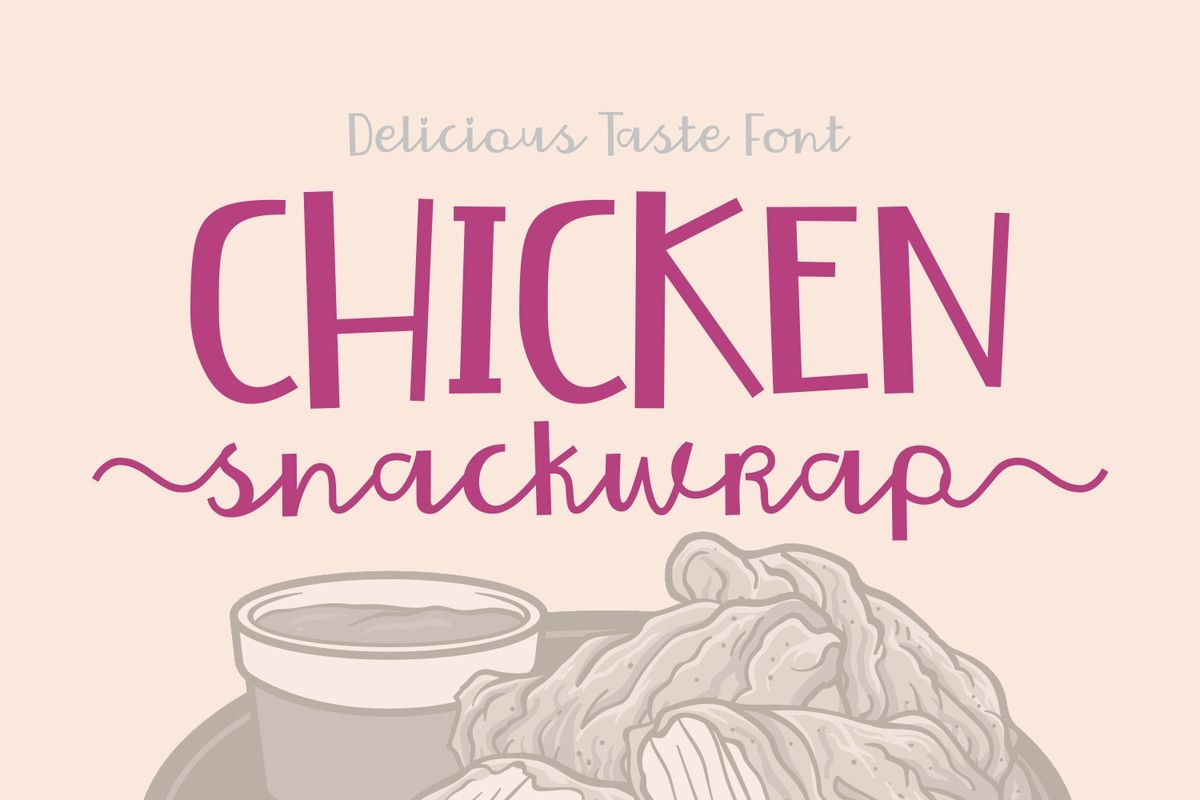
Chicken Snackwrap Font
Chicken Snackwrap Font is perfect for fast-casual restaurant branding, food truck identity, quick-service menu design, snack food packaging, casual dining promotions, and fun food delivery campaigns. Its playful character makes it ideal for chicken restaurants, wrap and sandwich shops, casual food courts, food festival vendors, student-focused eateries, and any project requiring appetite appeal with casual dining charm and comfort food authenticity.
This font is exciting because it captures the satisfying comfort and casual enjoyment of quick, delicious meals while delivering exceptional functionality for food brands seeking to communicate convenience, taste, and the kind of approachable quality that makes customers crave more. The appetizingly crafted letterforms evoke the warmth of fresh-cooked comfort food and the casual satisfaction of a perfectly wrapped meal, creating instant hunger appeal.
The Chicken Snackwrap Font family typically includes Light, Regular, Medium, and Bold weights with food-friendly alternates, casual dining ligatures, and appetizing elements that enhance its comfort food personality. This comprehensive collection enables food service professionals to create appetizing brand systems that maintain casual authenticity while offering flexibility for various food service applications requiring both comfort appeal and contemporary quick-service positioning.